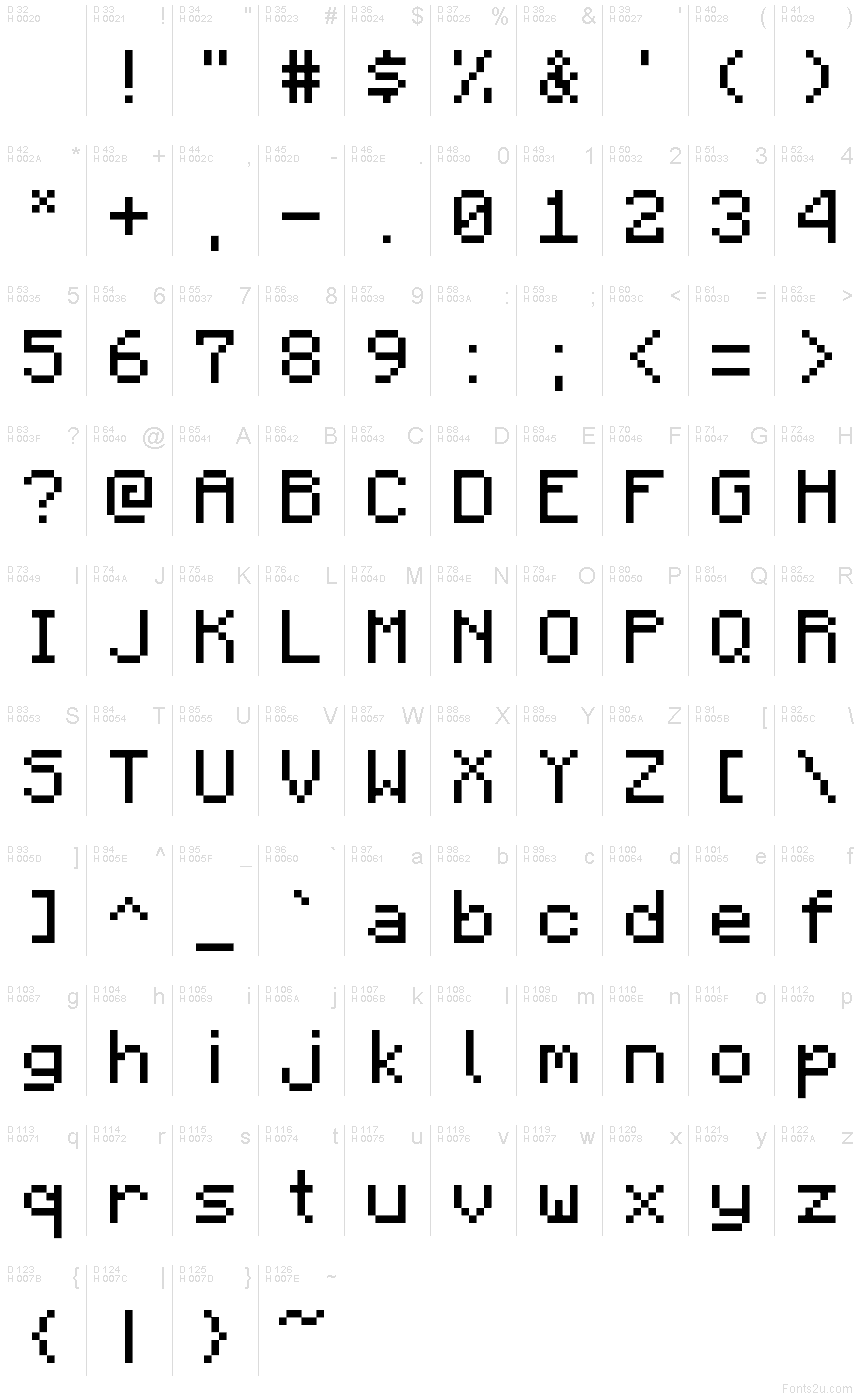
mac's Tweaked Minecraft Regular
mac's Minecraft Tweaked font by Macimas is a bitmap font inspired by the legendary game Minecraft. Characters are pixelated, blocky, geometric, uniform in size, and built on a grid. Thanks to the main style that's minimalist overall and with letterforms that have no fancy details it's an excellent free techno display font.
❤️ **Main** - This is the Minecraft font that includes bold and italic styles.
?️ **Tweaked** - This package makes adjustments to improve the readability of certain bold characters.
✨ **Extended** - An experimental package that adds more characters to the main font for fun.